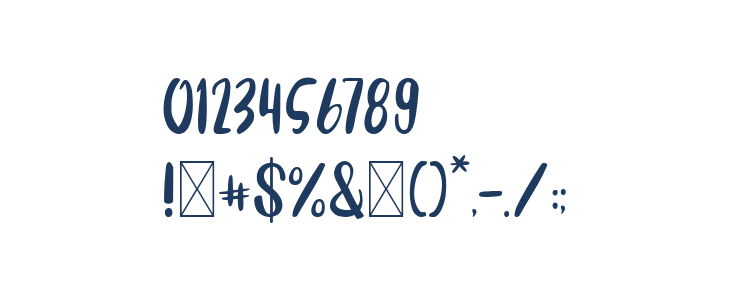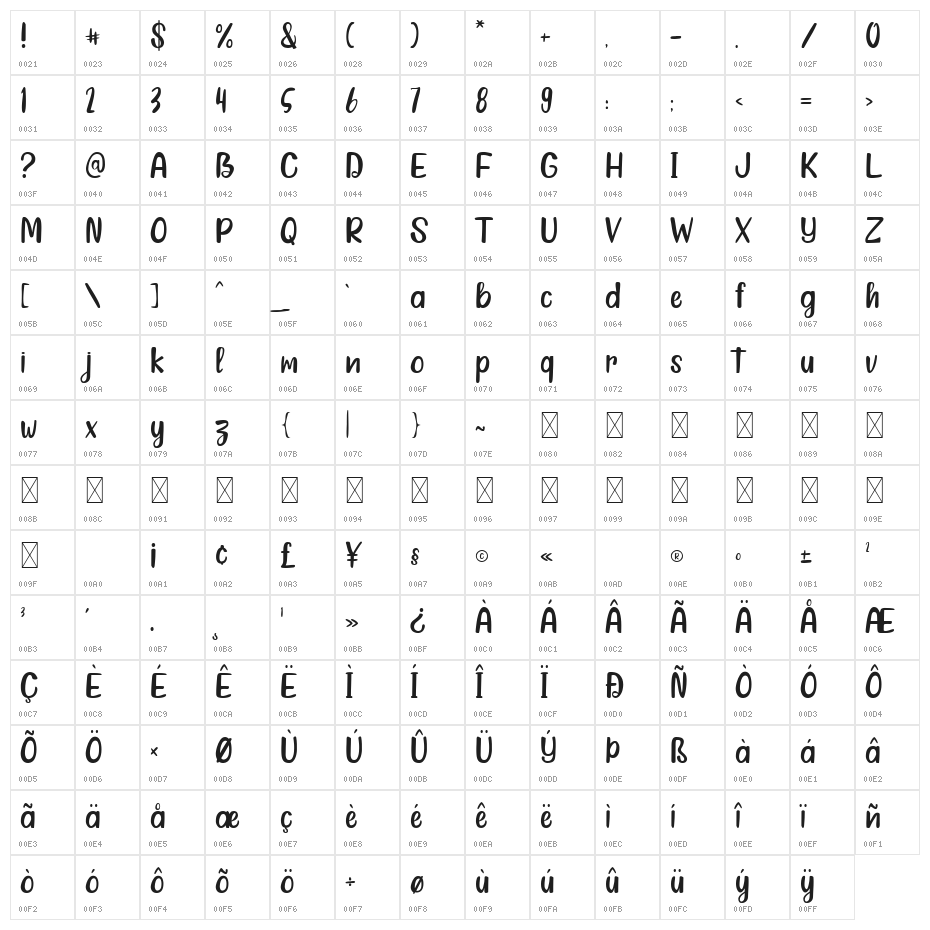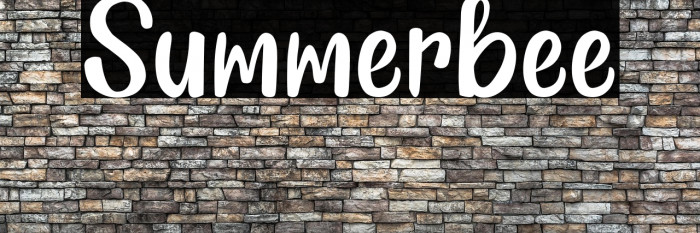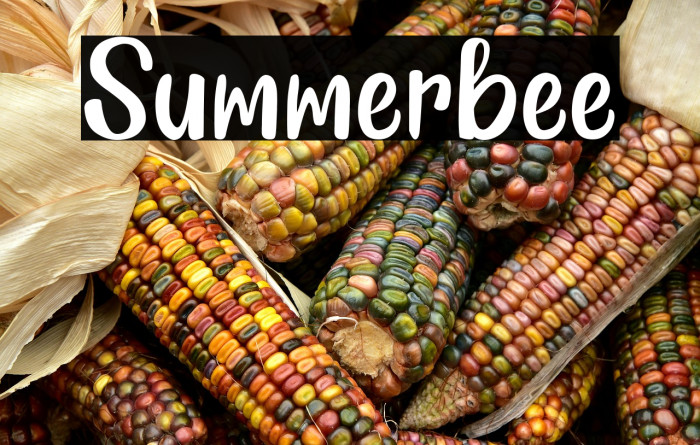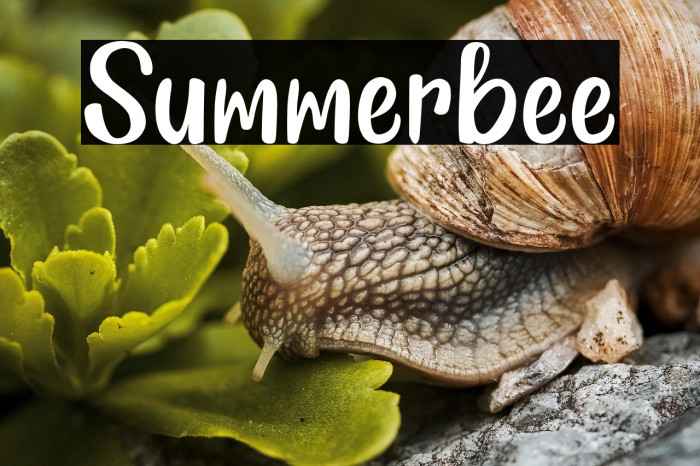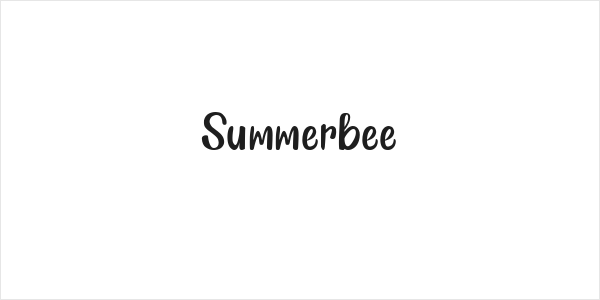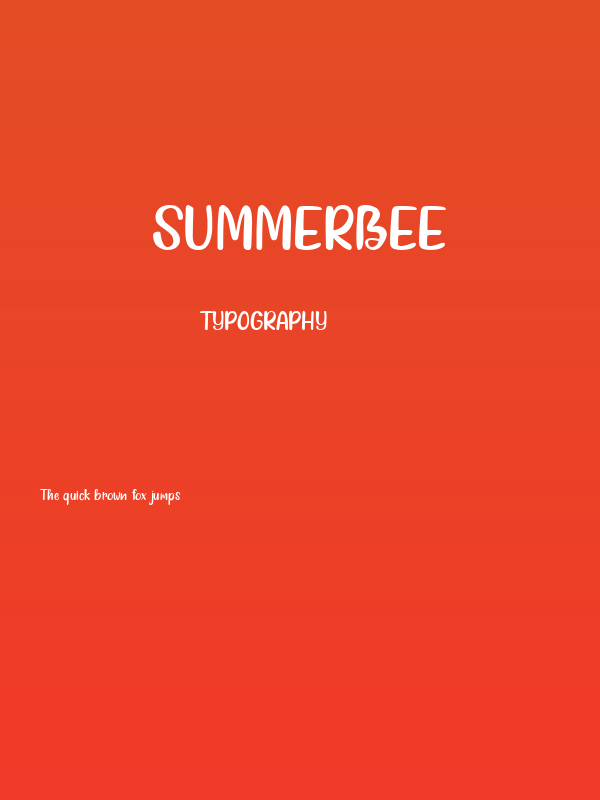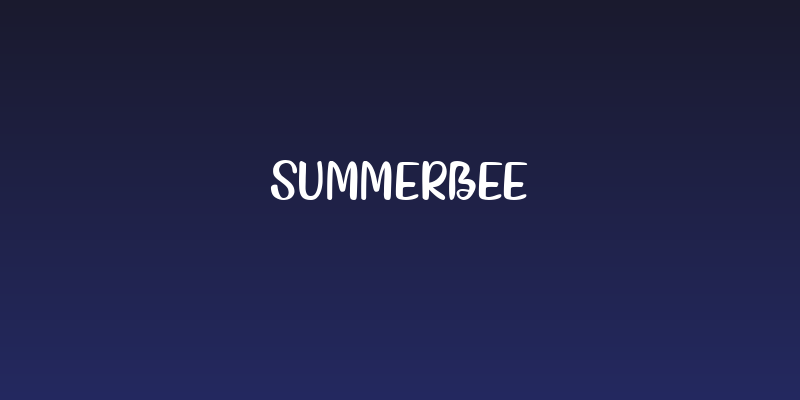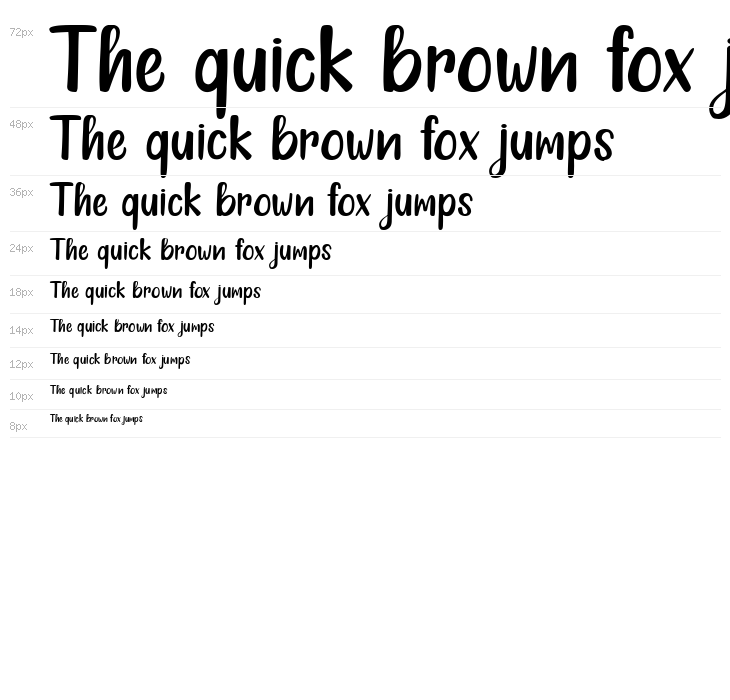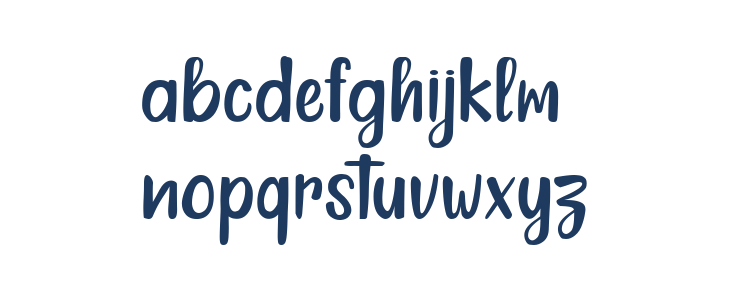
Summerbee Font
Summerbee Description
This playful and energetic font features a handwritten style with a bold and friendly appearance. The letters are rounded and slightly irregular, giving it a casual and approachable feel. The uppercase characters are consistent in height, while the lowercase letters have a slight slant, adding to the dynamic look. The numbers and special characters maintain the same lively style, making the font versatile for various uses. Its bold strokes and smooth curves make it stand out, perfect for projects that require a personal touch.
| Use Case | Headlines, Logos, Social Media |
| Proposed Projects | Ideal for greeting cards, children's books, playful branding, and social media graphics. |